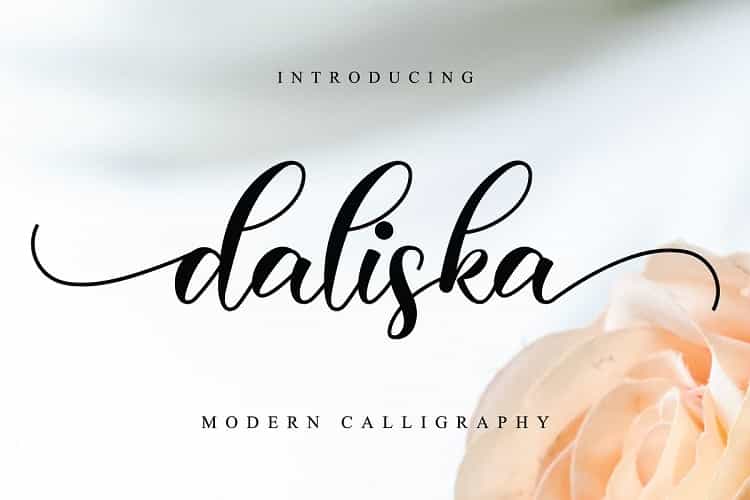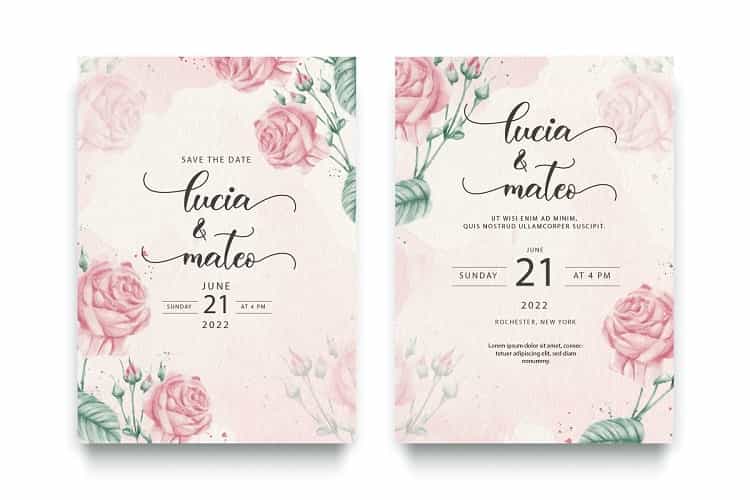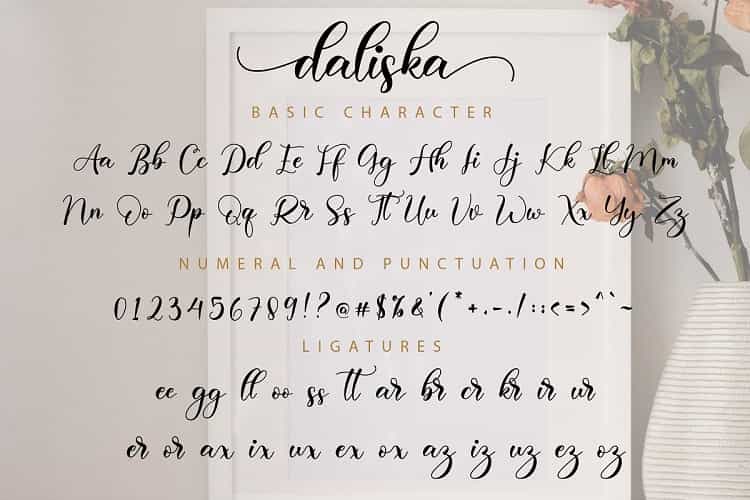
Daliska is so beautiful and modern font that it looks like a calligraphy script. It has a sophisticated, stylish and contemporary appearance that is suitable for logos, branding, invitations, stationery, wedding designs social media posts and many other things!